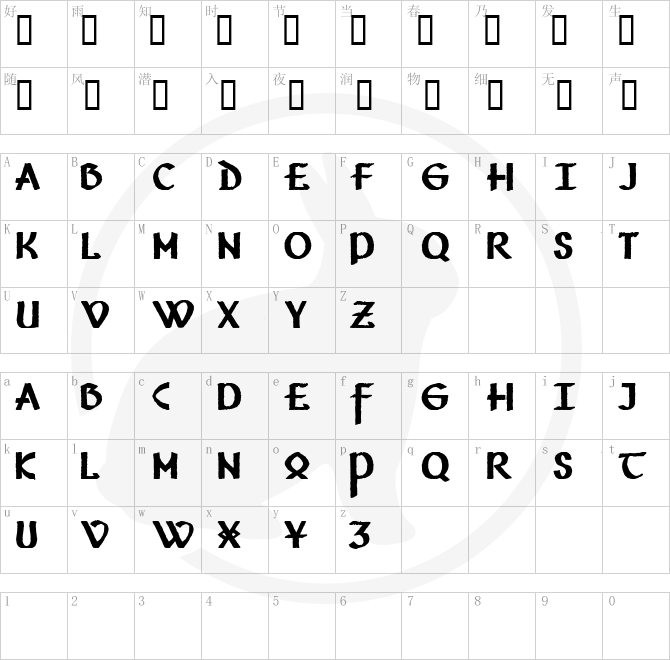
- Font Name:Vafthrudnir Demo
- Full Name:Vafthrudnir Demo
Vafthrudnir-Demo.ttf is a very beautiful artistic font, Vafthrudnir-Demo.ttf is widely used in the design and printing of various books and pictures,Vafthrudnir-Demo.ttf has a strong visual impact,Vafthrudnir-Demo.ttf is a commonly used font in newspapers, magazines and books, and is used in posters, e-commerce Poster design, store design, logo design, font design and other fields.Vafthrudnir-Demo.